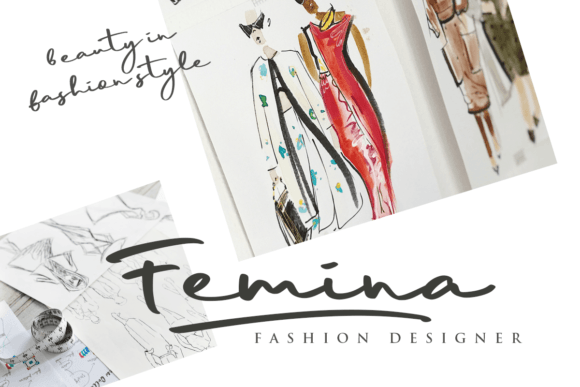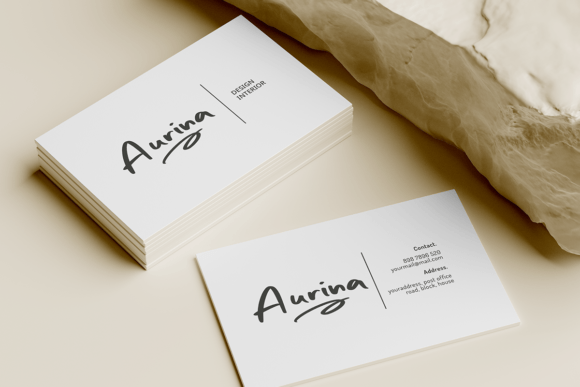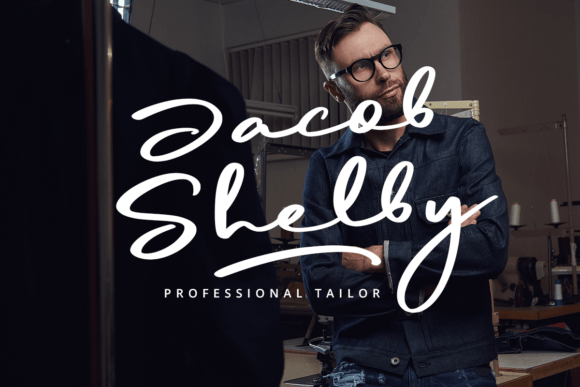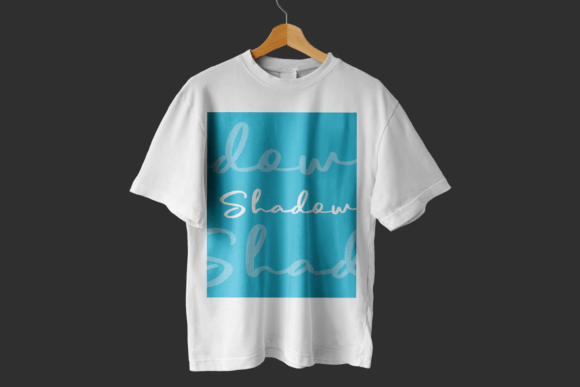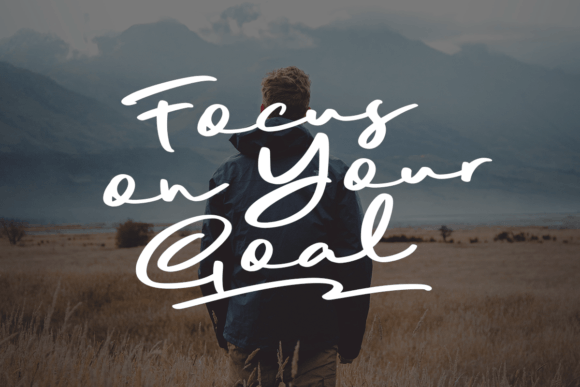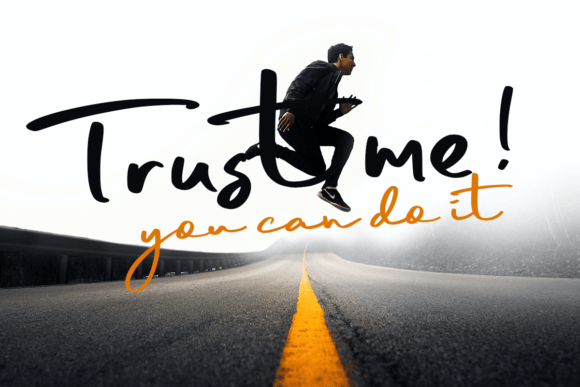
Introducing Aprillee Font: Elevate Your Designs with Elegant Handwritten Charm
In the world of digital design, fonts play a pivotal role in conveying the tone and aesthetic of a project. For those seeking to infuse their work with a touch of elegance and personal warmth, the Aprillee Font is an exceptional choice. This gorgeous handwritten font, inspired by real calligraphy, has been gaining attention for its versatility and beauty, making it perfect for a wide range of design applications.
The Beauty of Aprillee Font
Aprillee Font is a masterpiece that brings the elegance of traditional calligraphy to the digital realm. Its fluid strokes and natural flow mimic the authenticity of handwriting, providing a personal touch to any design. Whether you’re working on invitations, T-shirt designs, lettering projects, quotes, or greeting cards, Aprillee offers a sophisticated yet approachable feel that resonates with audiences.
One of the standout features of Aprillee Font is its incredible versatility. Designers and crafters can use it across various projects, including:
- Invitations: Make your event invitations special with a personal touch.
- T-shirt Designs: Create unique and stylish apparel that stands out.
- Lettering Projects: Add a professional yet personal feel to your lettering.
- Quotes: Present your favorite quotes in an elegant and readable format.
- Greeting Cards: Elevate your greeting cards with a sophisticated design.
Aprillee Font comes with PUA (Private Use Area) encoding, a significant advantage for designers. PUA encoding allows easy access to all the glyphs and swashes, enabling you to customize your designs without hassle. This feature means you can effortlessly incorporate the font’s charming extras into your work, making it even more distinctive.
Why Choose Aprillee Font?
For designers and crafters looking to make their work stand out, Aprillee Font offers several compelling reasons:
- Natural and Personal: Adds a warm, personal touch to your projects.
- Elegant and Sophisticated: Provides a level of elegance that’s hard to achieve with standard fonts.
- Highly Versatile: Suitable for a wide range of design applications.
- User-Friendly: PUA encoding makes it easy to use and customize.
Tips for Using Aprillee Font
To get the most out of Aprillee Font, consider the following tips:
- Pair with Simplicity: Let Aprillee be the focal point by pairing it with simpler fonts.
- Experiment with Sizes: Play with different sizes to emphasize certain parts of your design.
- Utilize Swashes: Take advantage of the PUA-encoded swashes to add flair to your text.
Aprillee Font is a beautiful addition to any designer’s toolkit. Its elegant, handwritten charm, coupled with its versatility and ease of use, makes it an excellent choice for a variety of projects. Whether you’re a professional designer or a crafting enthusiast, Aprillee Font can help you achieve that personal and sophisticated look you’re aiming for. Explore the possibilities with Aprillee Font and elevate your designs to a new level of elegance and charm.